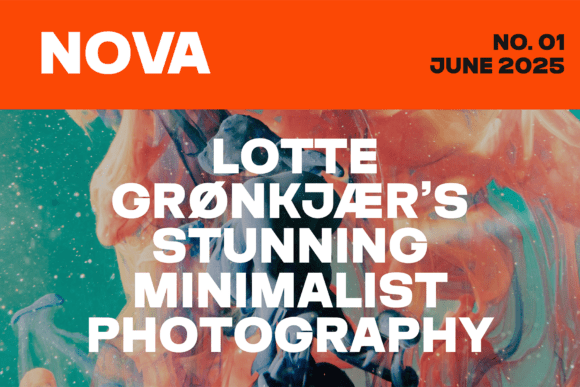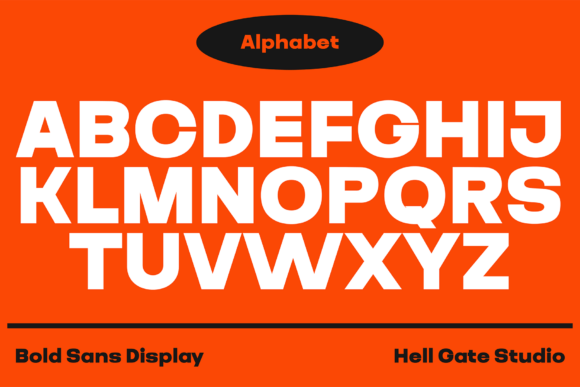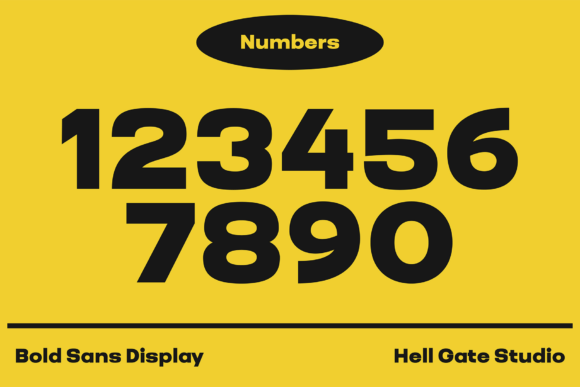
Introduction to Pagi Font
As a designer, there’s nothing quite like the thrill of bringing a creative project to life. The moment when all the elements come together, and your vision takes shape – it’s pure magic. But, have you ever found yourself stuck, searching for the perfect font to elevate your design and make it truly stand out? That’s where Pagi Font comes in, offering a game-changing solution for designers looking to add a touch of elegance to their work.
Pagi Font is more than just a design resource – it’s a key to unlocking your full creative potential. With its high-quality, bold strokes, this exceptional font is sure to make a lasting impression on any project. Whether you’re working on a free download or a commercial campaign, Pagi Font is the perfect addition to take your design to the next level.
So, what sets Pagi Font apart from the rest? Its versatility, for starters. With seamless editing capabilities and a transparent background, you have the freedom to experiment with different styles and colors, ensuring that your project truly reflects your unique vision.
Key Features of Pagi Font
- Pagi Font is a high-quality design resource ideal for creative projects, offering a unique and modern aesthetic.
- Pagi Font’s unique characteristics, such as its geometric shapes and bold lines, make it an excellent choice for designers looking to add a touch of sophistication to their creative project.
Honest Review: Pagi Font
As a designer, I’m always on the lookout for high-quality design resources that can elevate my creative projects. Recently, I had the chance to try out the Pagi Font, and I’m excited to share my thoughts.
- ✨ Clean and minimalist design that’s perfect for modern branding
- ✨ High-quality glyphs that are well-suited for both digital and print projects
- ⚠️ Limited font weights and styles, which may not be ideal for complex design projects
- ⚠️ Not as extensive a character set as some other fonts, which could be a concern for international projects
Overall, I’m impressed with the Pagi Font, but I think it’s best suited for smaller, more straightforward design projects. With a bit more development, I think it has the potential to become a go-to font for designers.
Pagi Font
Designing with Pagi Font
Tips for Getting the Most Out of Pagi Font
To get the most out of Pagi Font, try combining it with other design elements to create a unique and eye-catching design. Experiment with different font sizes and styles to add depth and interest to your project.
Pagi Font is perfect for a variety of creative projects, including logos, branding materials, and print designs. Its high-quality design and transparent background make it ideal for use in a range of design applications.